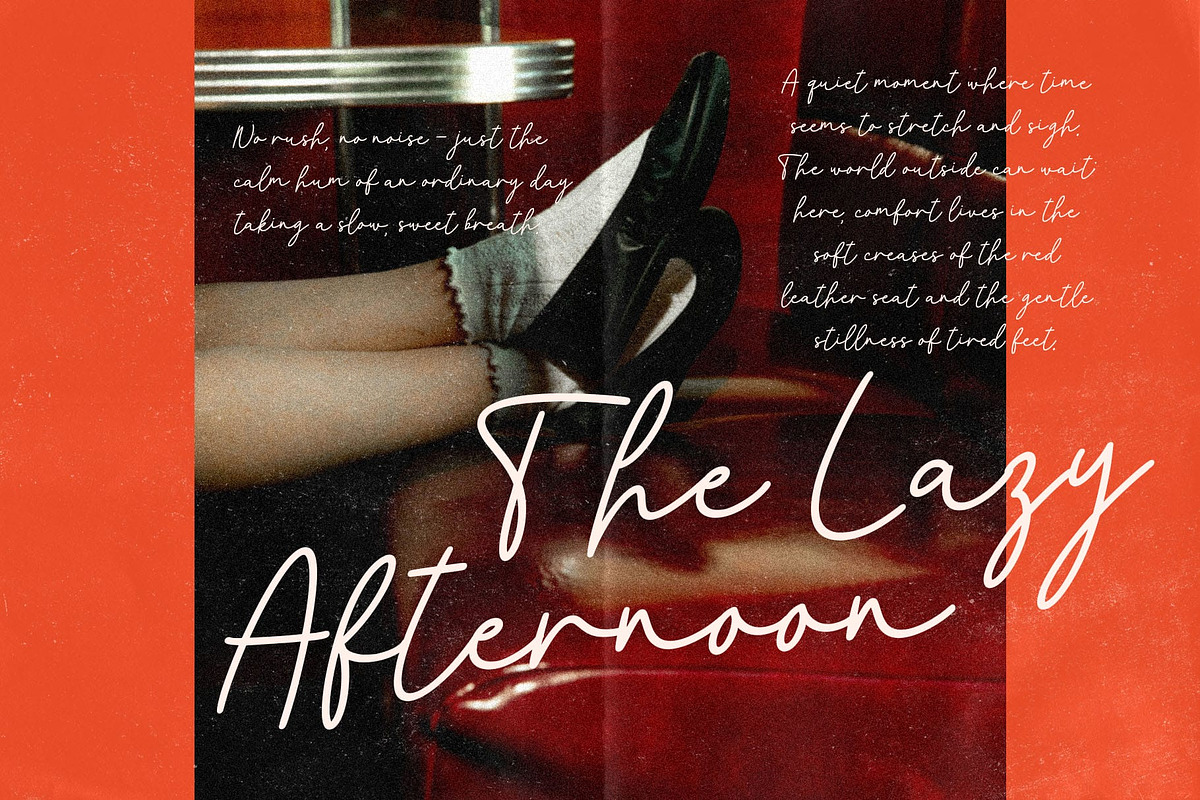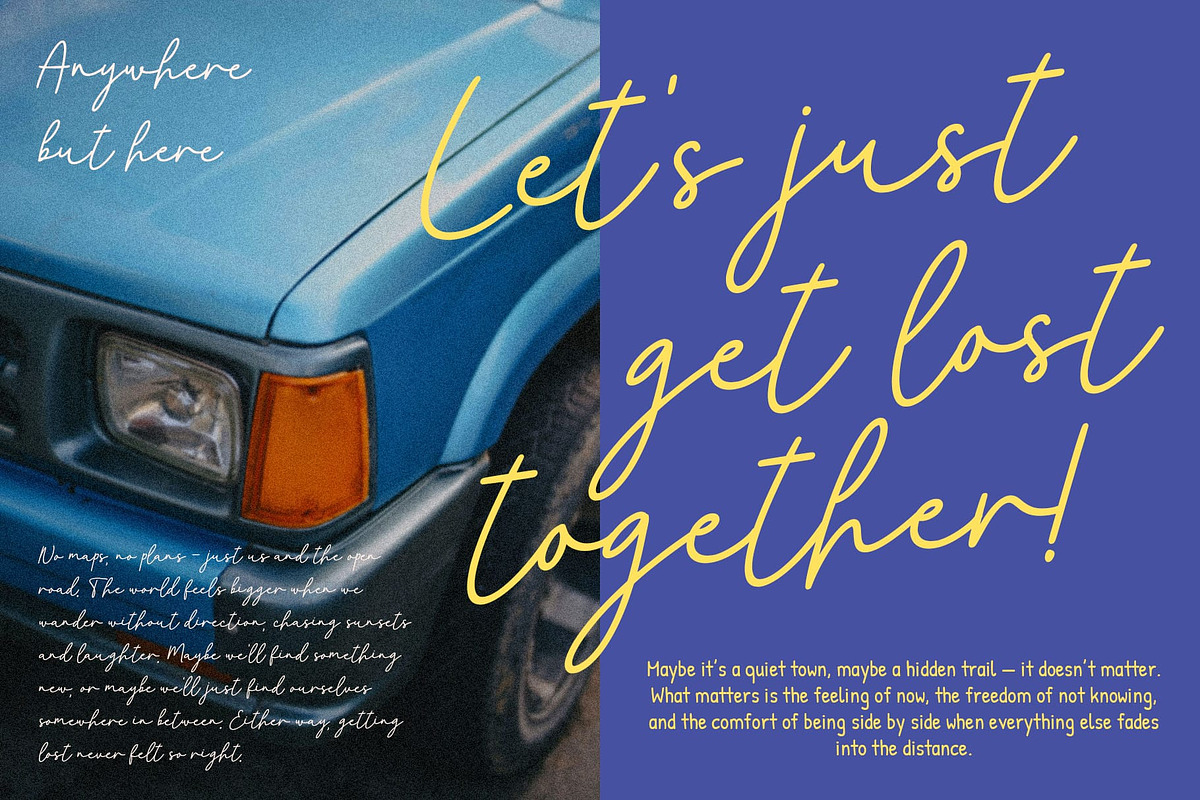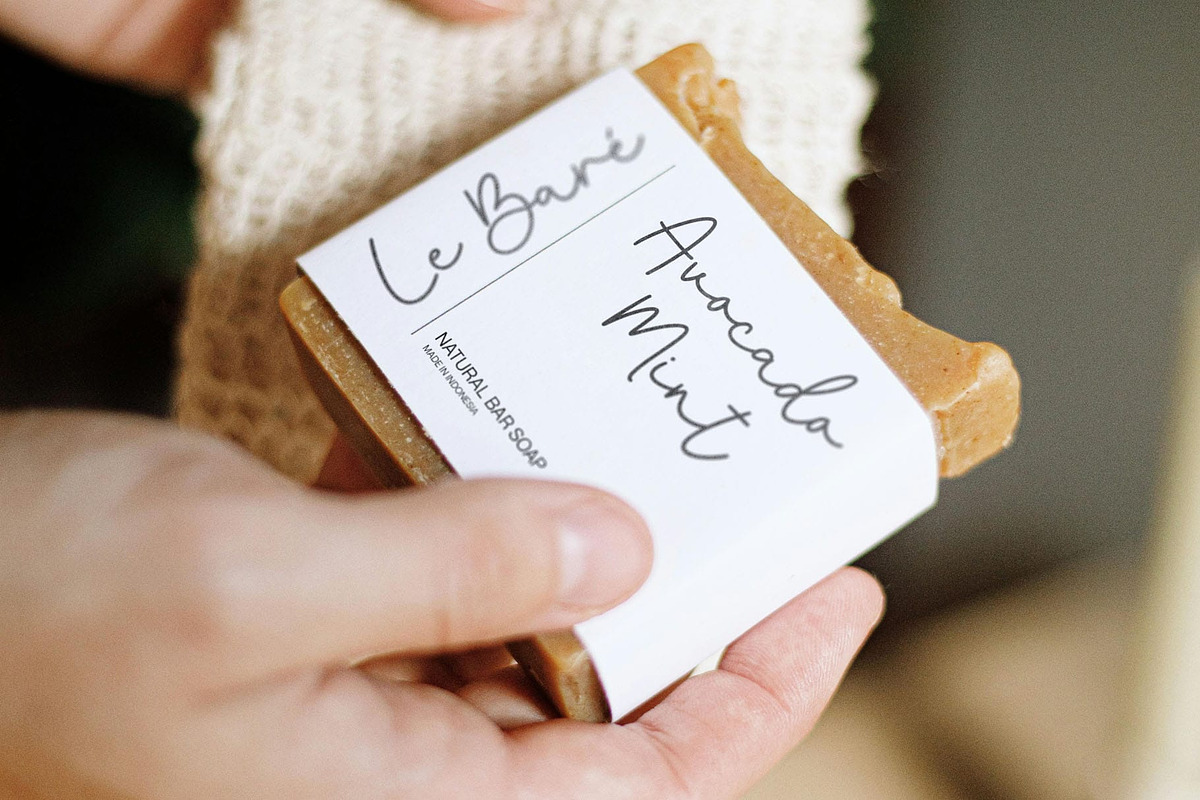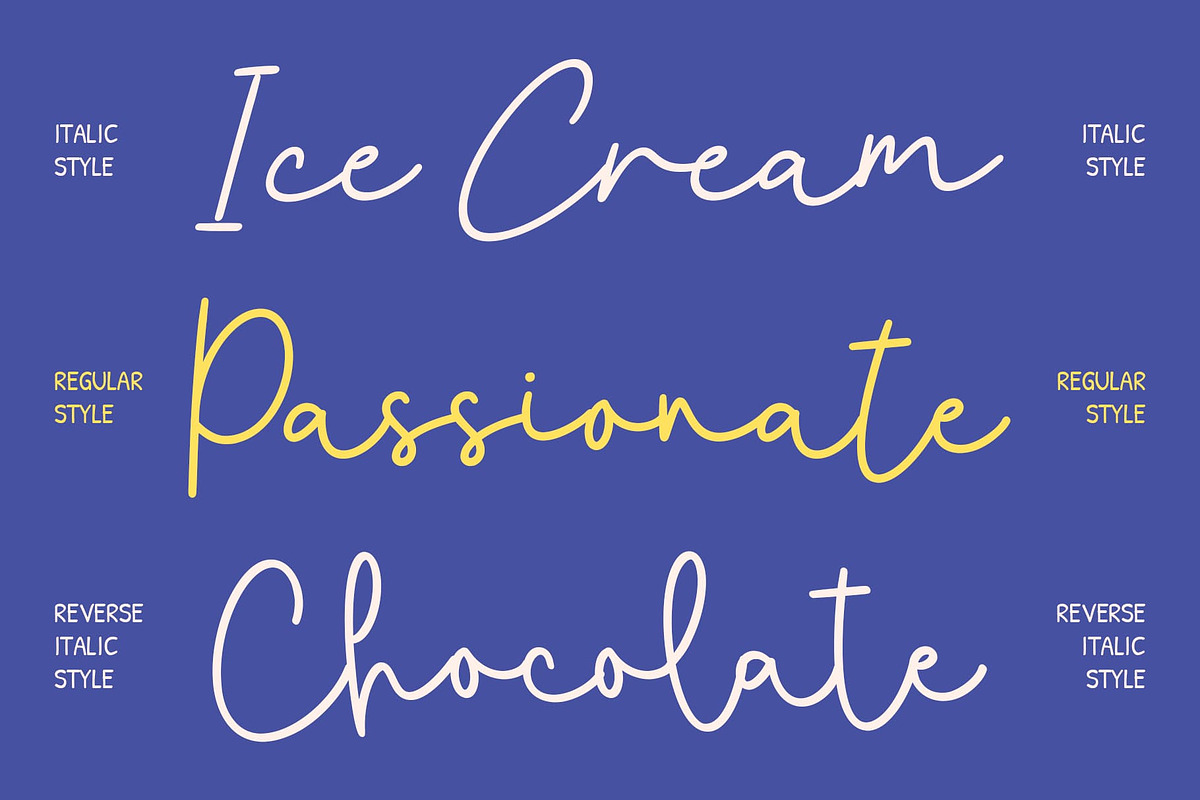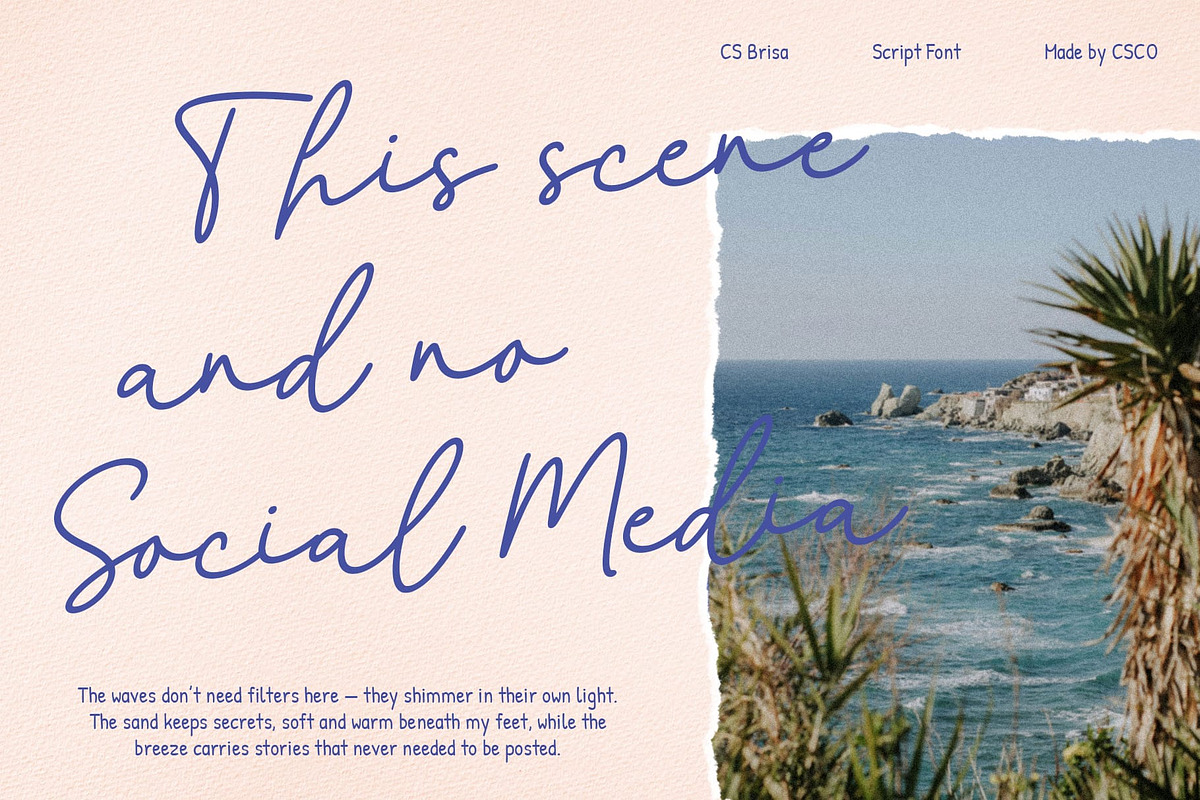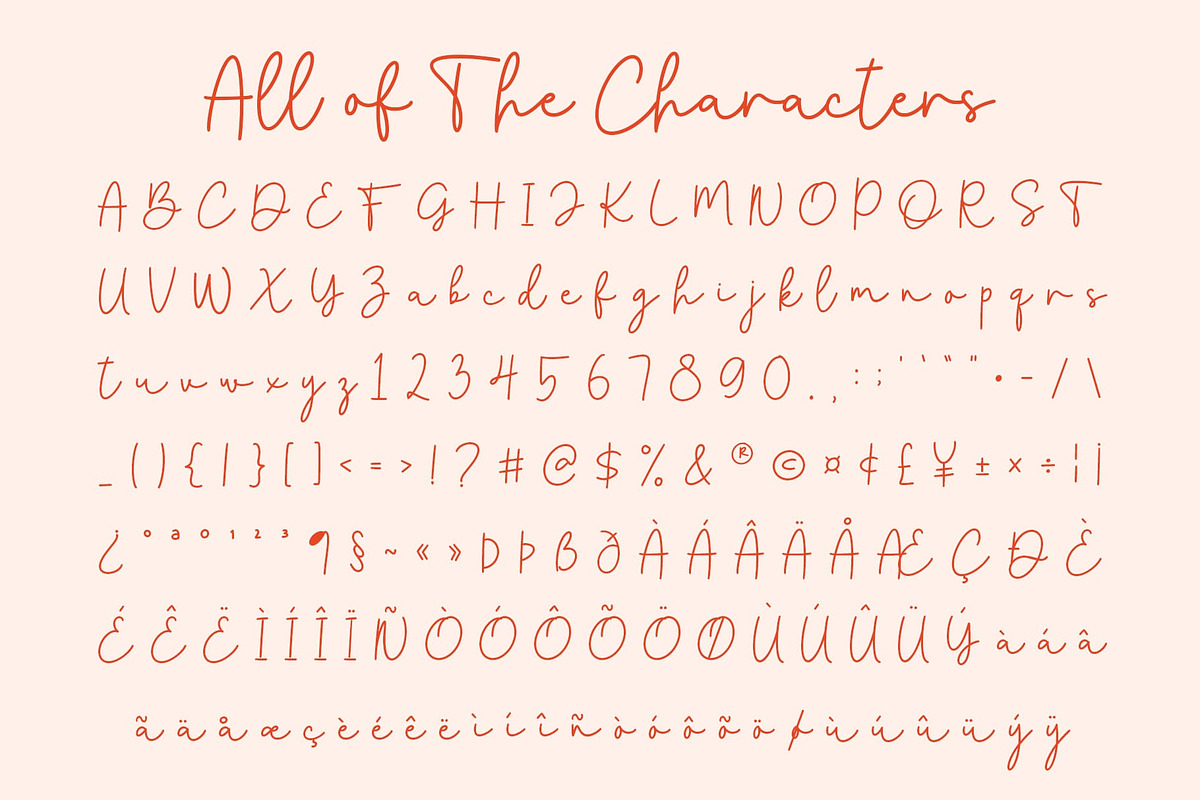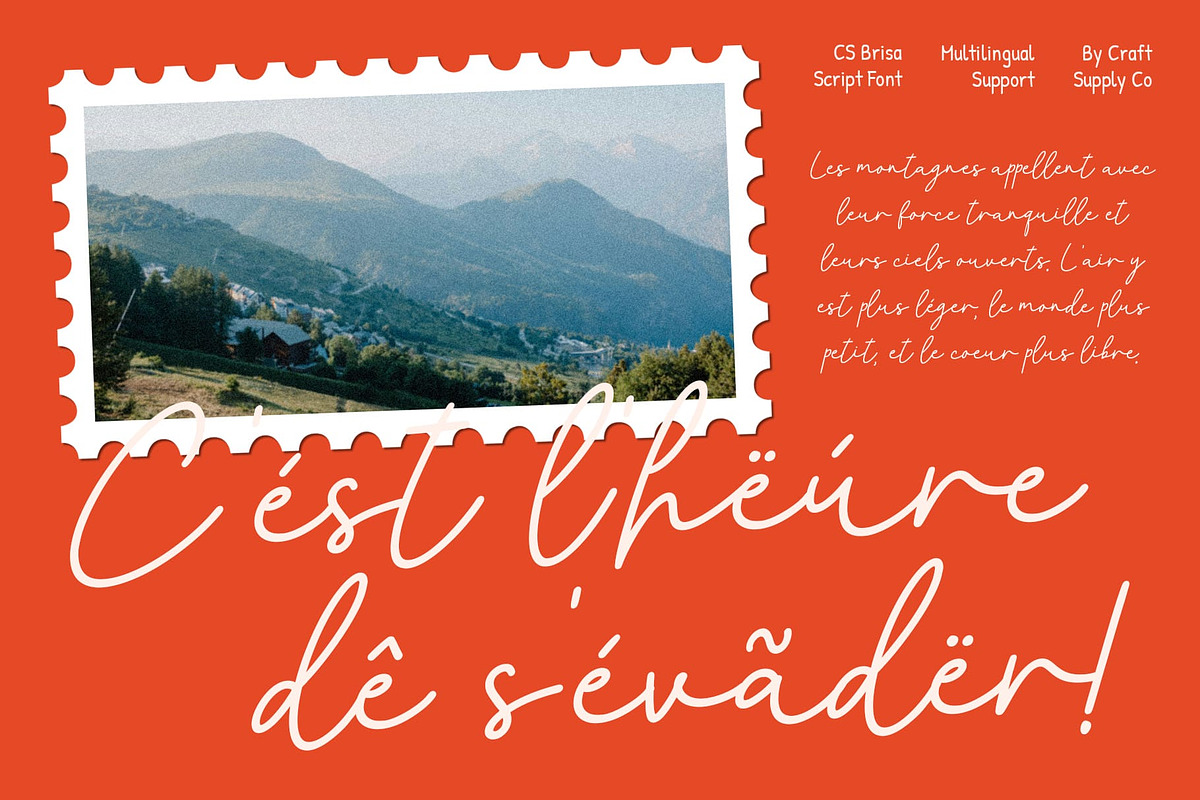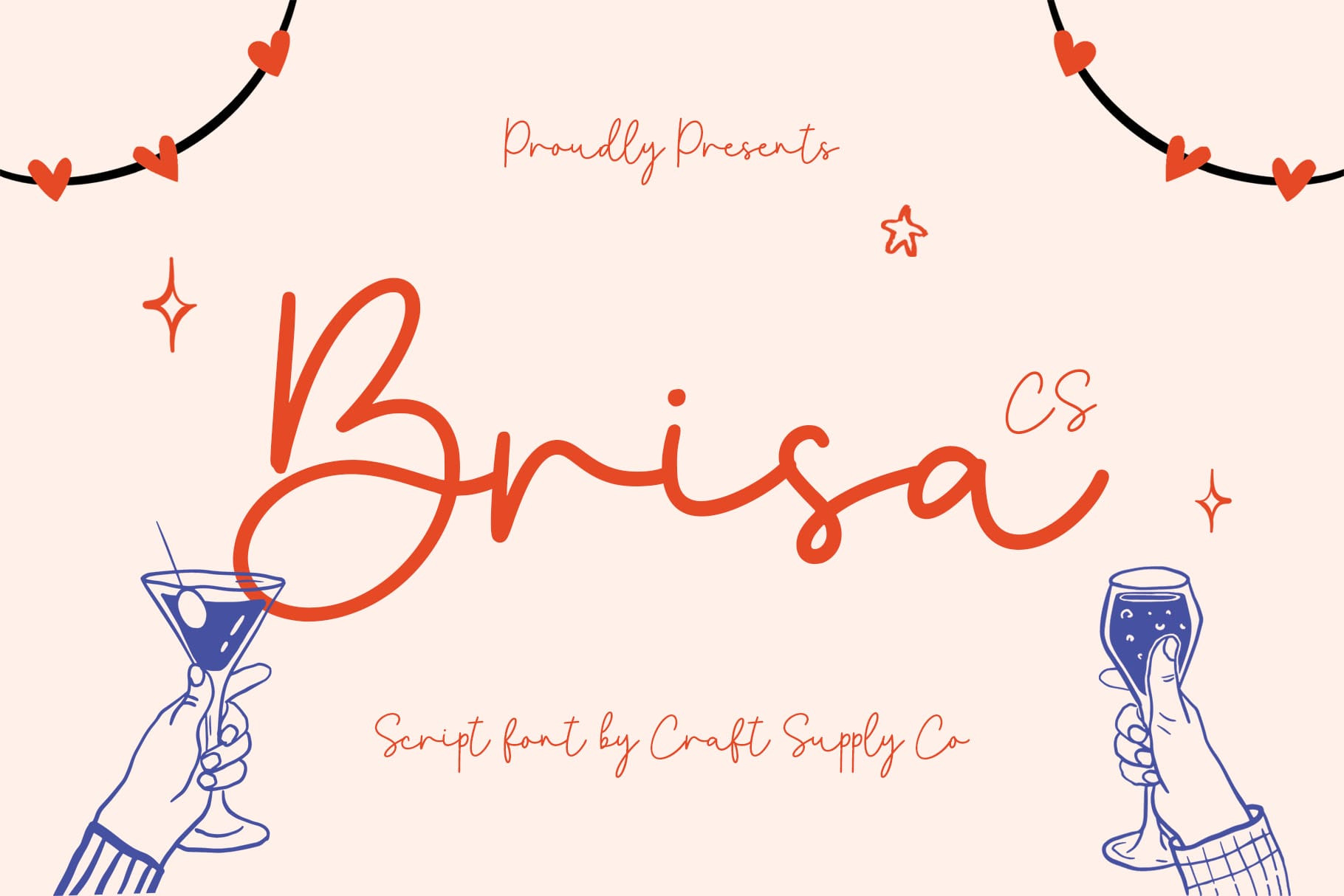
CS Brisa – Monoline Script Font
CS Brisa: Grace in Motion with Timeless Style
Monoline Script Font with Flowing Elegance This is an elegant monoline script font defined by its smooth, flowing lines and refined rhythm. Each letter glides gracefully into the next, creating a harmonious visual flow that captures beauty and sophistication. Perfect for high-end designs, adds a touch of timeless charm and polished style to any creative project.
Graceful Curves for Refined Expression Every stroke in this font is designed to express balance and elegance. Its even monoline weight and gentle curves bring a sense of calm and confidence, making it ideal for designs that value refinement and continuity. Whether used in large titles or delicate accents, its fluid structure enhances both readability and visual allure.
Stylish Rhythm for Modern Sophistication This fonts rhythmic motion and modern flow give it a contemporary yet classic feel. The smooth connection between letters adds movement and personality, creating a sense of natural handwriting elevated by design precision. It’s perfect for luxury branding, fashion editorials, or elegant event materials that demand subtle sophistication.
Perfect for Romantic and Luxury Designs From wedding invitations to upscale branding and editorial layouts, this font adapts seamlessly to projects that require grace and charm. Its combination of simplicity, flow, and style makes it a versatile choice for creative professionals. With this font, every word feels elegant, confident, and beautifully composed.